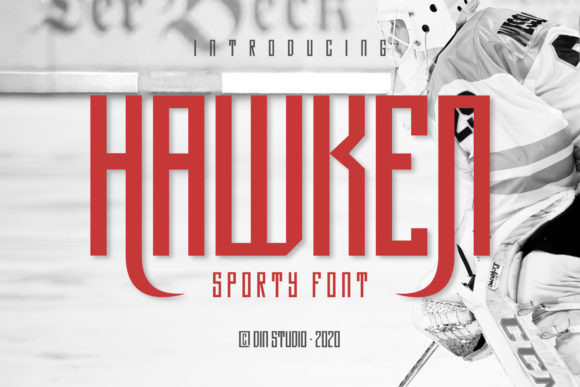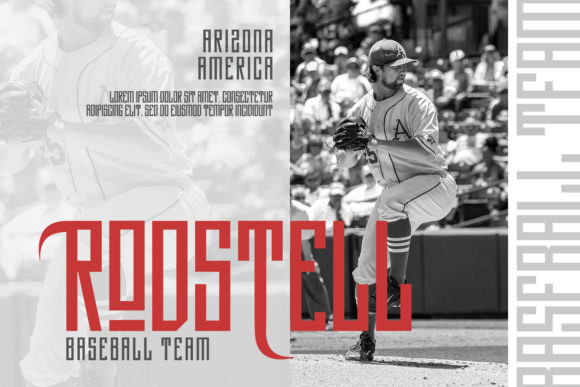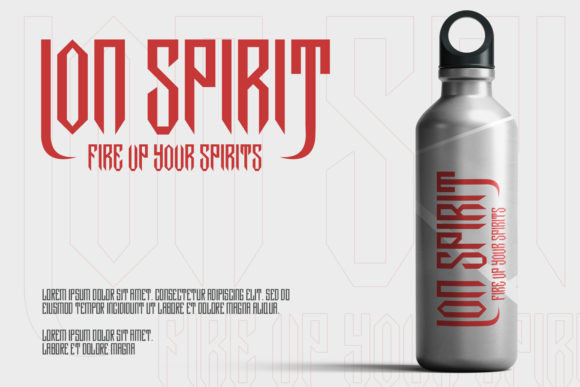
Hawken Font
Hawken is a powerful display font, incredibly adept for any racing or sporting event. It looks fit for quotes, posters, logos, branding, business cards and so much more.